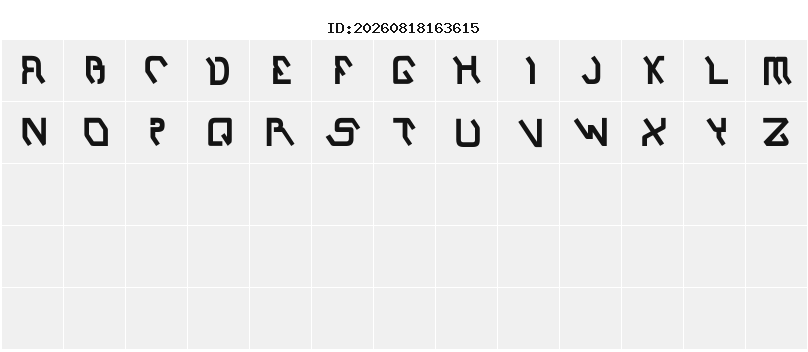
Slantica.ttf is a modern, elegant sans-serif font designed for ultimate readability and visual harmony. Perfect for branding, headlines, web design, and print materials.